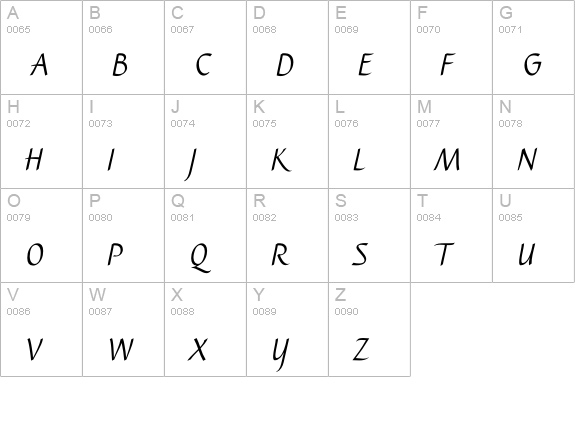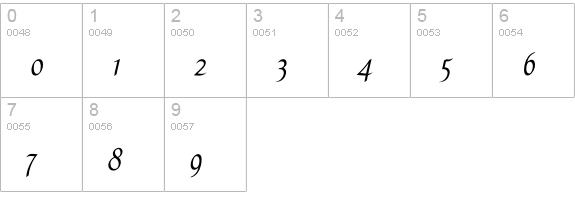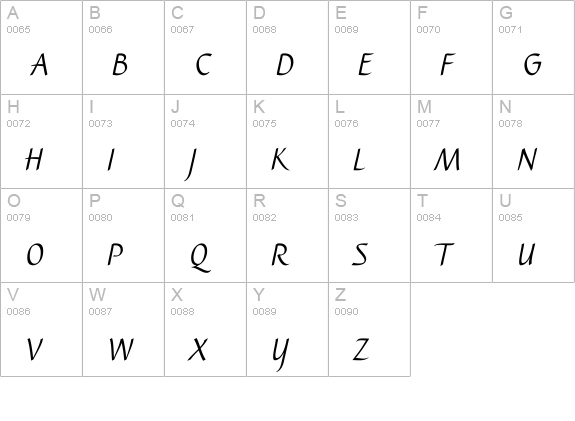
Caterina Light Italic is a refined, elegant, italic variant in the Caterina typeface family \xE2\x80\x94 well suited to elegant body text, refined sub-headings, and luxury branding.
Caterina Light Italic font is a sophisticated and elegant typeface that exudes a sense of modernity and refinement. With its delicate and stylish curves, this font is perfect for adding a touch of sophistication to any design project. The italic style adds a sense of elegance and flair, making it ideal for use in invitations, branding, and editorial design. Best of all, Caterina Light Italic font is available for free download at FontsMarket.com. This means you can easily access this beautiful font and use it in your projects without any cost. Whether you're a professional designer or a hobbyist looking to add a touch of elegance to your creations, Caterina Light Italic font is the perfect choice. Download it today and elevate your designs with its timeless beauty.